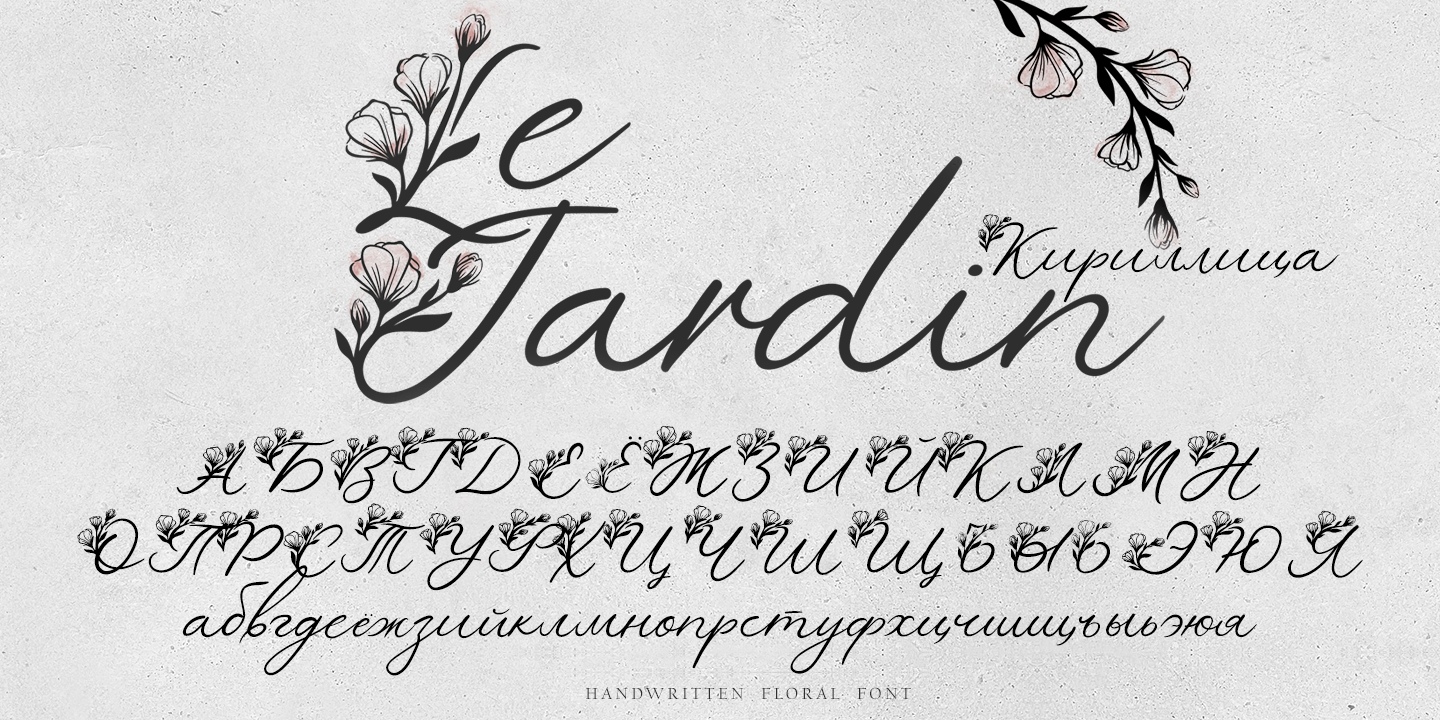
Le Jardin Font
Le Jardin Font is ideal for French bistro menus, garden café signage, artisanal bakery branding, vineyard labels, Parisian boutique logos, French countryside tourism, romantic restaurant branding, European flower shops, luxury French perfume packaging, and provincial market displays.
What makes Le Jardin Font exciting is its sophisticated French charm that captures the elegant refinement of Parisian gardens and European countryside aesthetics. This enchanting typeface features graceful letterforms with continental flair and artistic flourishes that instantly evoke feelings of French elegance, garden sophistication, and European cultural heritage.
Le Jardin Font family includes regular and bold weights with decorative swashes and French-inspired ornamental elements, providing designers with elegant tools for creating sophisticated European brand identities and continental design systems.
Le Jardin Font embodies French sophistication with its masterfully crafted letterforms that reflect the artistic heritage of European typography and garden design traditions. This versatile typeface successfully combines continental elegance with contemporary functionality, making it perfect for brands seeking to communicate French refinement, cultural authenticity, and European sophistication.
Hospitality professionals consistently choose Le Jardin Font Free Download for its ability to communicate French elegance and European sophistication across diverse continental applications. The font's refined character and cultural resonance ensure memorable brand representation in markets where European heritage and French refinement are highly valued.
The comprehensive character collection includes uppercase and lowercase letters, European numerals, French punctuation, and decorative continental elements that enhance the font's versatility in French-themed applications. Le Jardin Font supports multiple European languages with stylistic alternates for authentic French communications.
Le Jardin Font performs beautifully in both luxury print materials and sophisticated European digital platforms, maintaining its French character whether featured in wine menus, displayed on boutique websites, or used in artisanal product packaging. The font's elegant details ensure consistent continental appeal.
French hospitality professionals and European brand creators appreciate how Le Jardin Font instantly establishes cultural authenticity and continental atmosphere in creative projects. Its distinctive French personality helps brands create sophisticated experiences that celebrate European heritage and French cultural traditions.
Whether you're designing French restaurant branding, creating European product packaging, or developing continental hospitality communications, Le Jardin Font provides the cultural authenticity and French elegance essential for connecting with sophisticated European audiences.